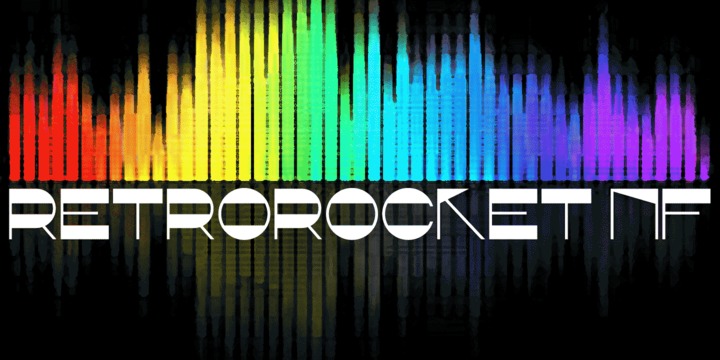
Retrorocket NF
A French lettering chapbook from the 1920s, entitled "Art du Tracé Rationnel de la Lettre," provided the inspiration for this decidedly Deco exercise in alternative letterforms. Both flavors of this font feature the 1252 Latin, 1250 Central European, 1254 Turkish and 1257 Baltic character sets.